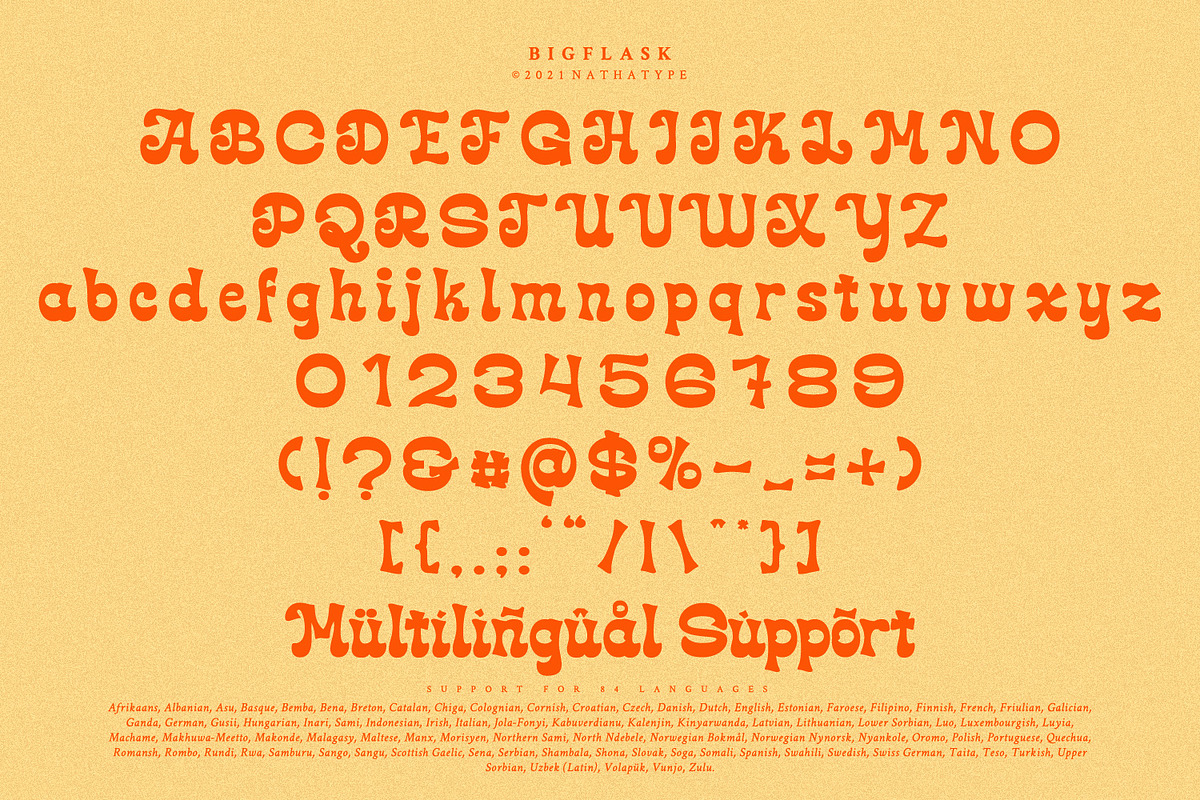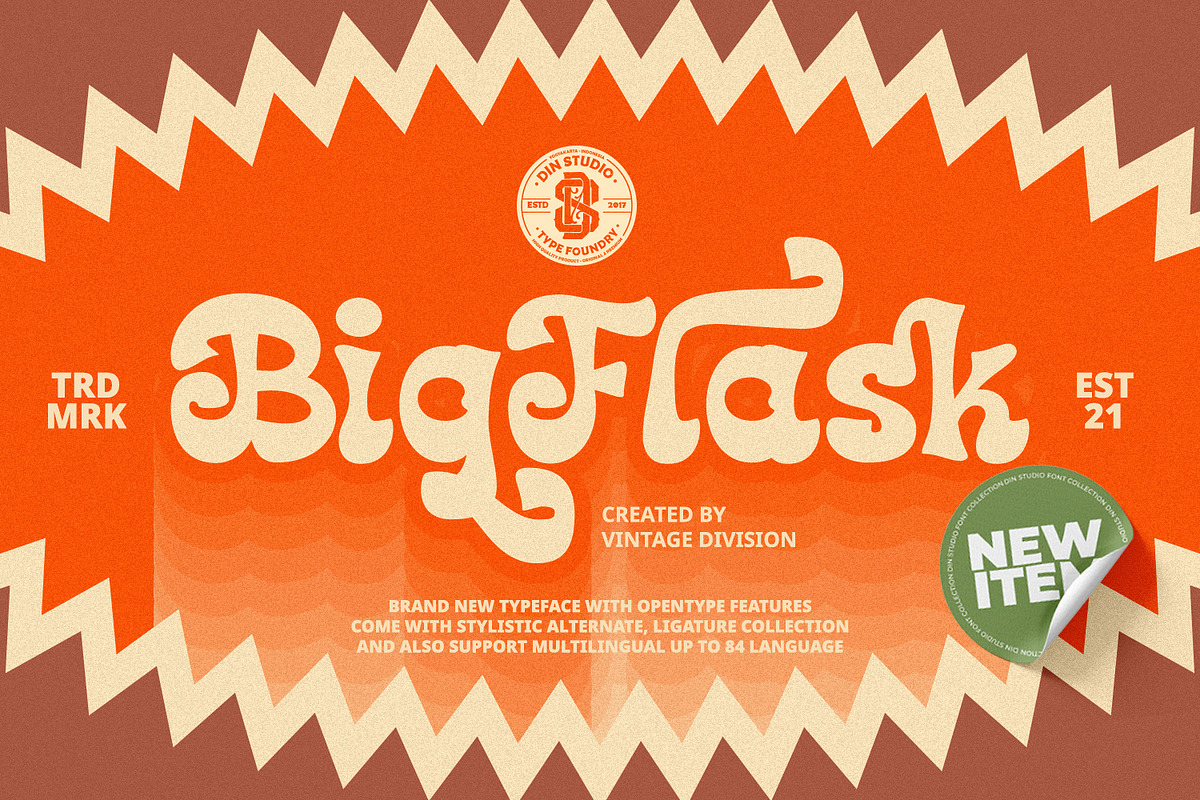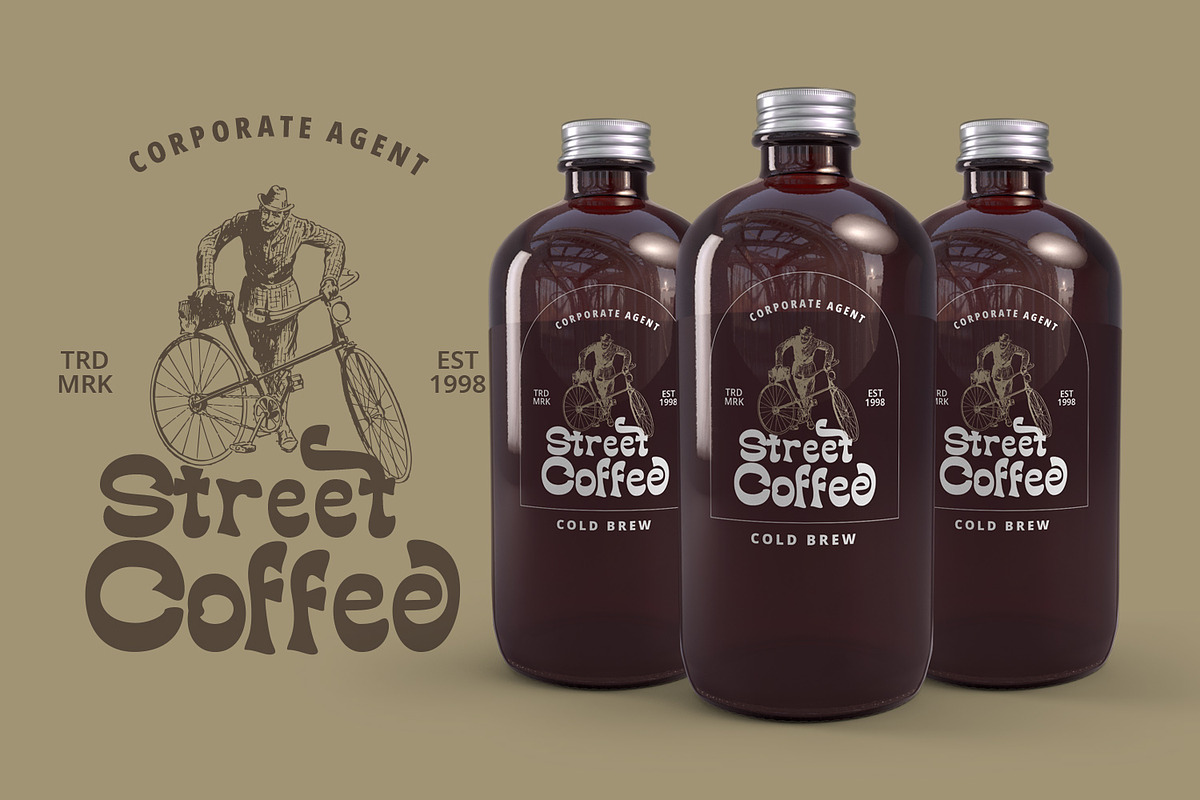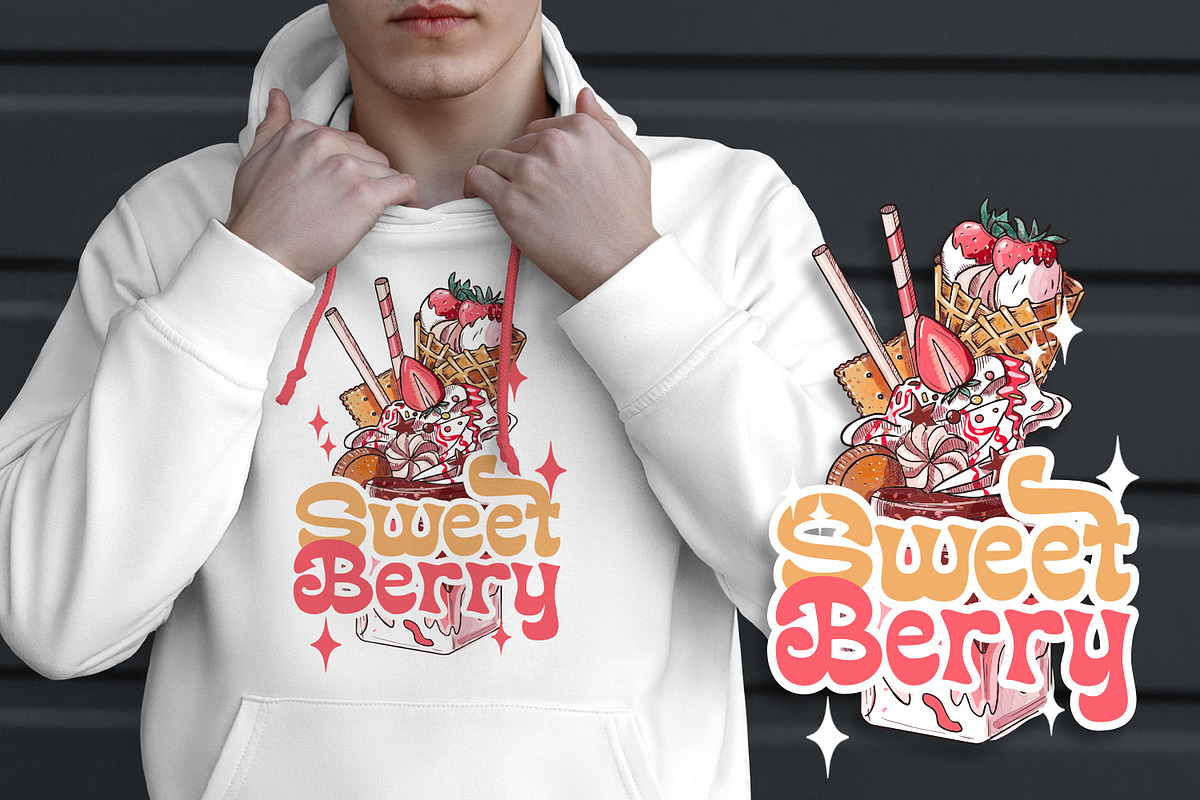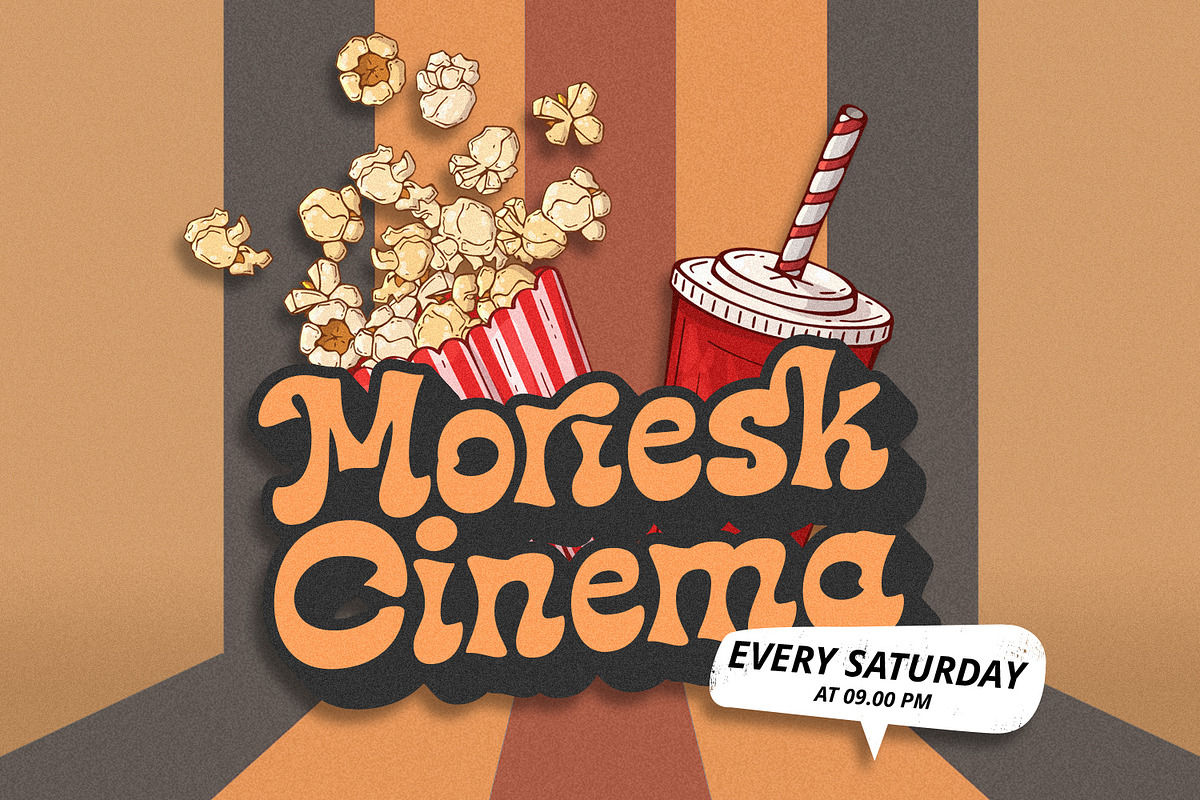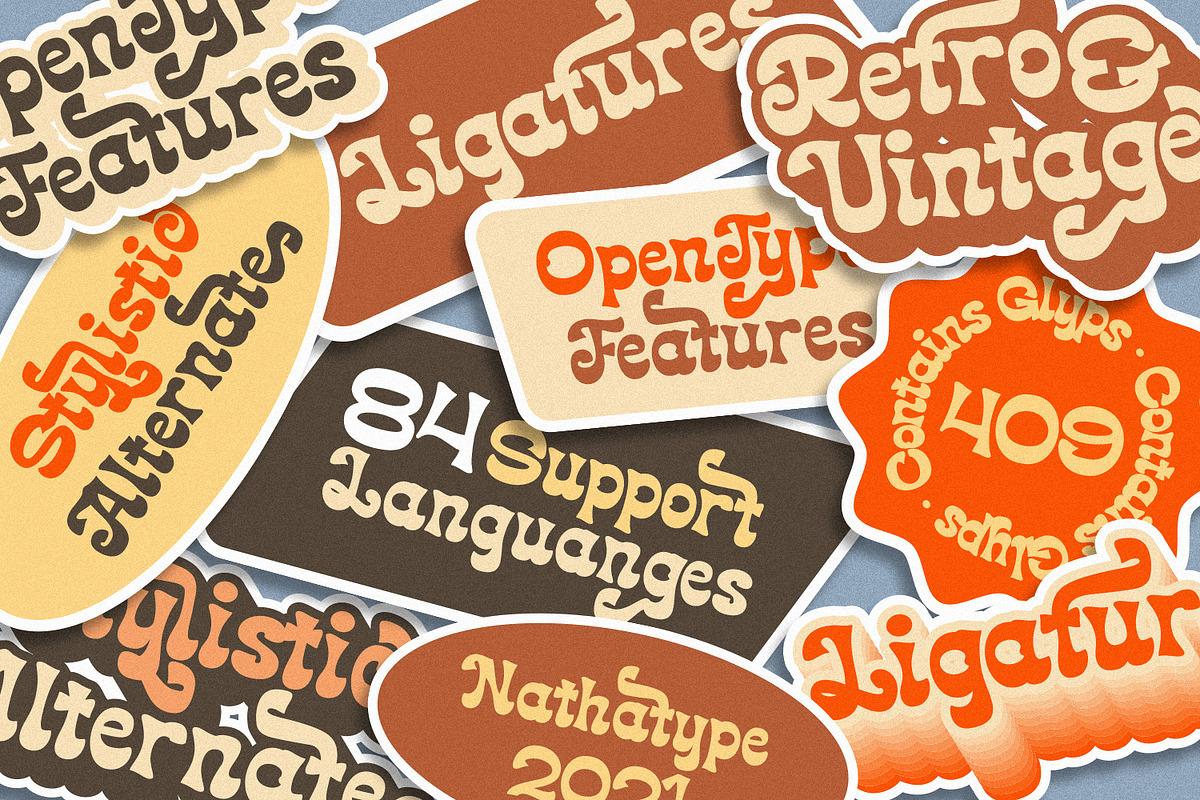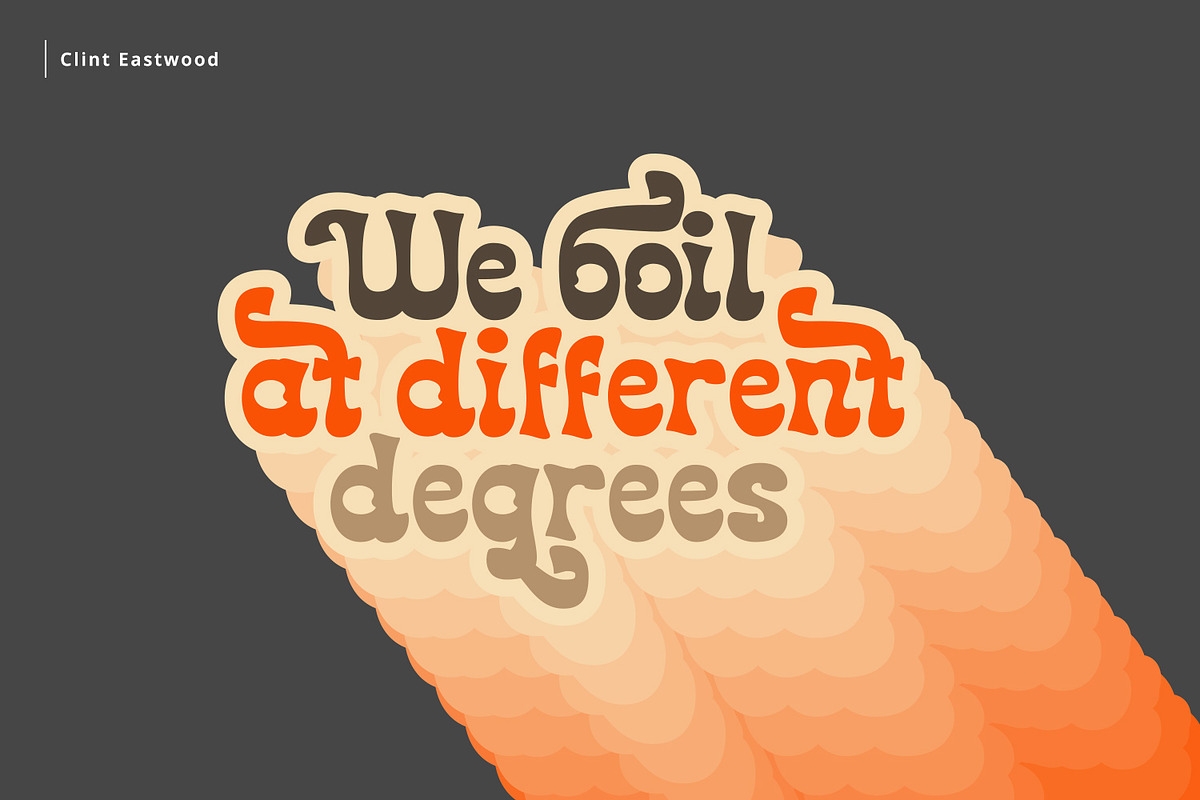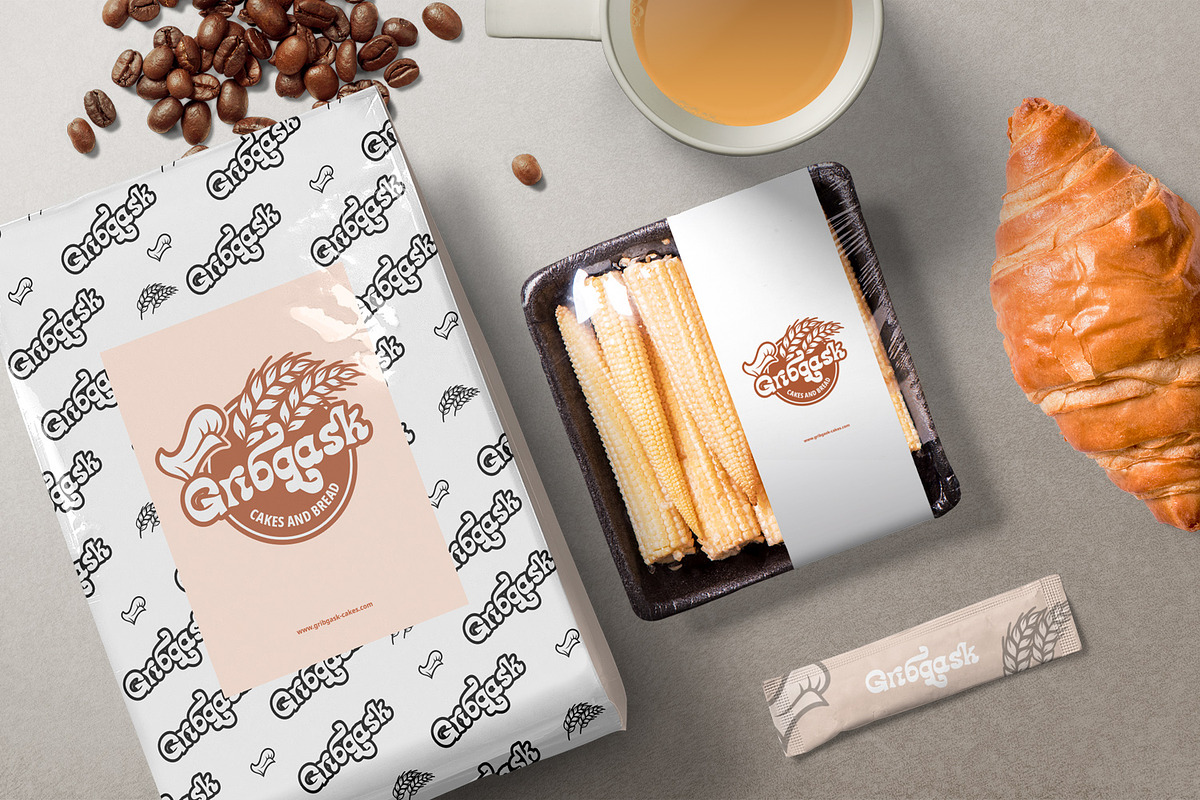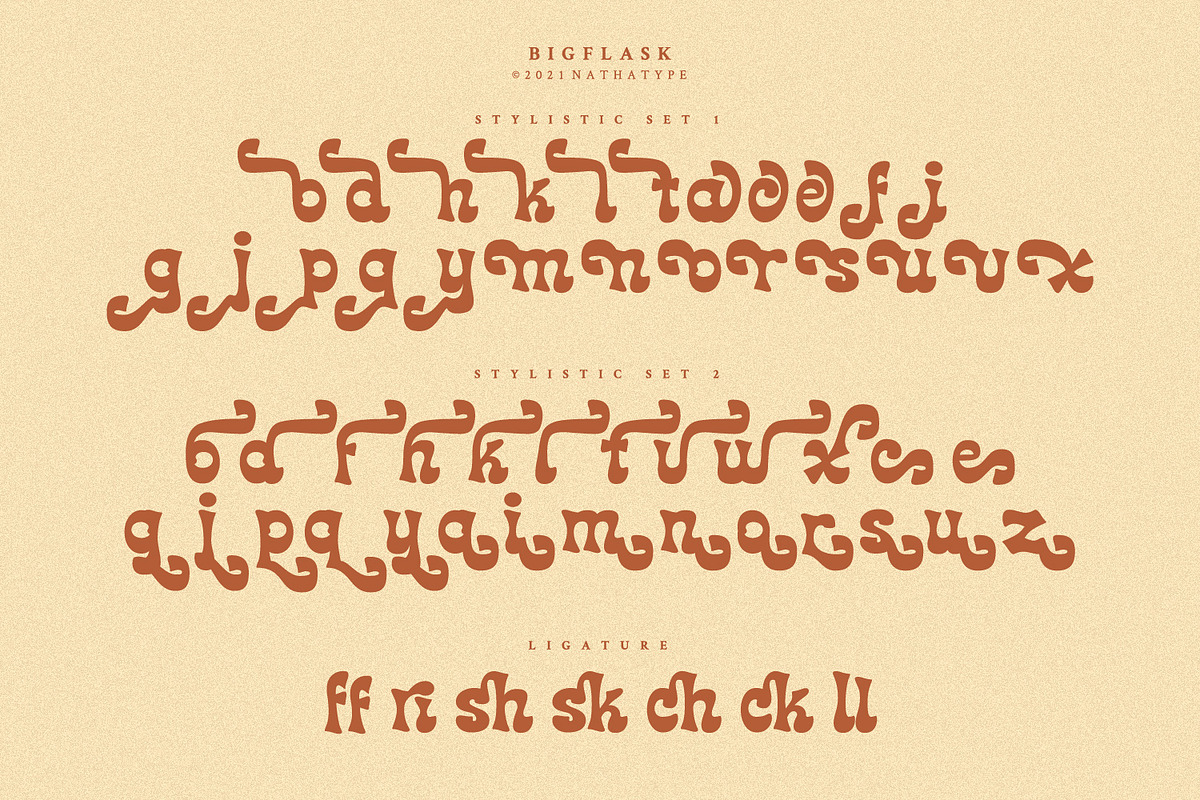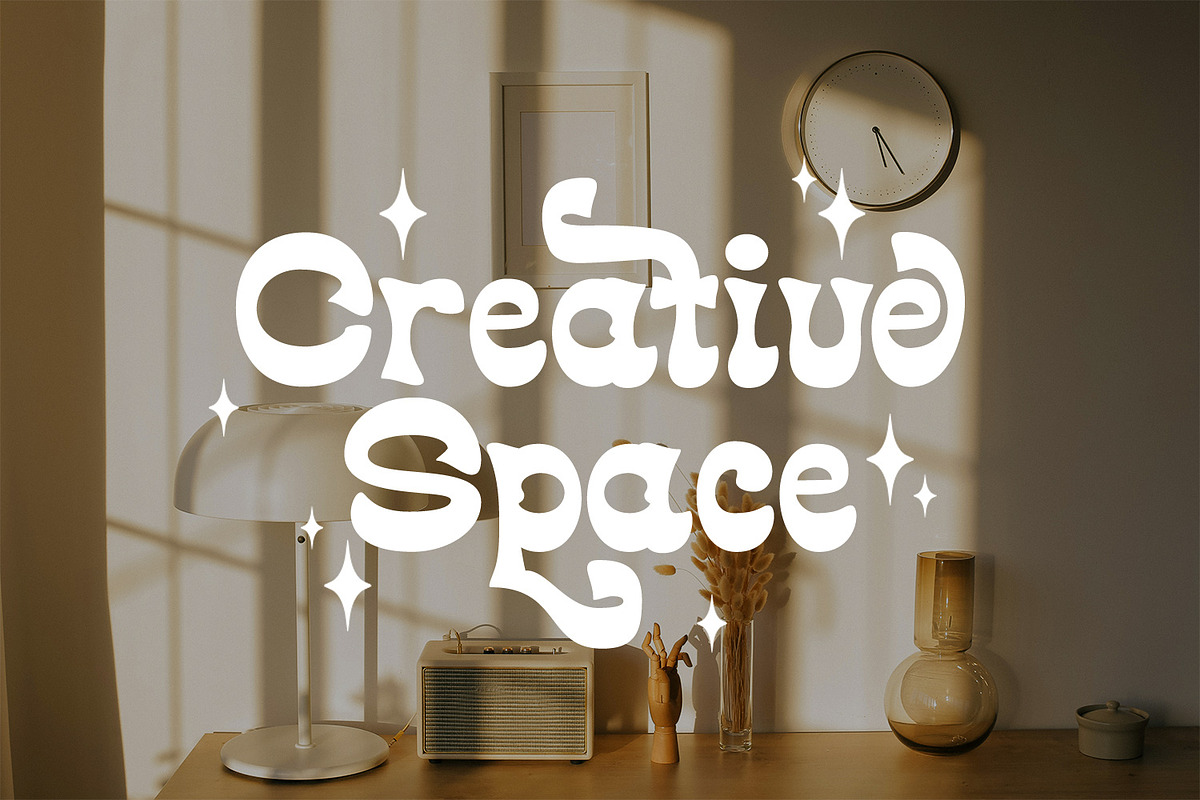
Big Flask
Looking for a font that’ll make your branding spark? Ready to enhance your project? Something that’s versatile and a bit touch of retro vibes? Get ready to transcend to a world of magic, laughter, and butterflies.
Big Flask-A Display Font
Big Flask is a typeface that will make your projects elevate. An excellent choice to add the right amount of retro touch. This typeface with artistic style looks very interesting for loads of different projects and promotions. Use it to create standout headings, logo, book cover, poster, t-shirt, branding, and advertisement needs.
- Stylistic Set